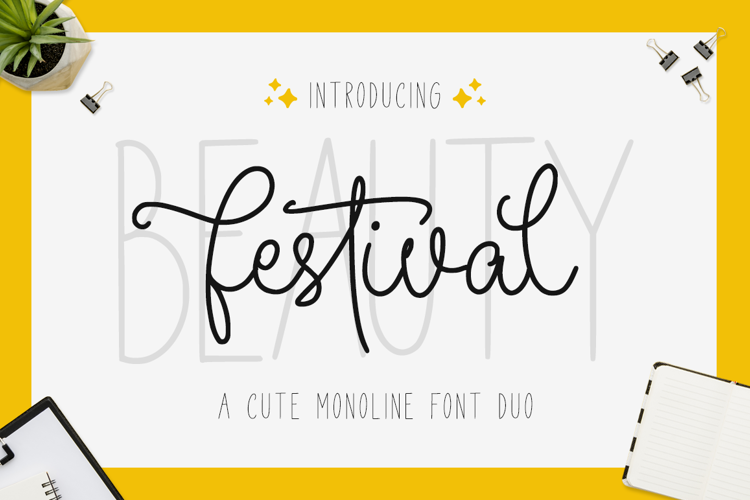
Beauty Festival Font
Script Style
The Beauty Festival Font Duo is a handwritten script that is combined with a slick yet playful looking sans. The duo works very well for a lot of different types of projects.